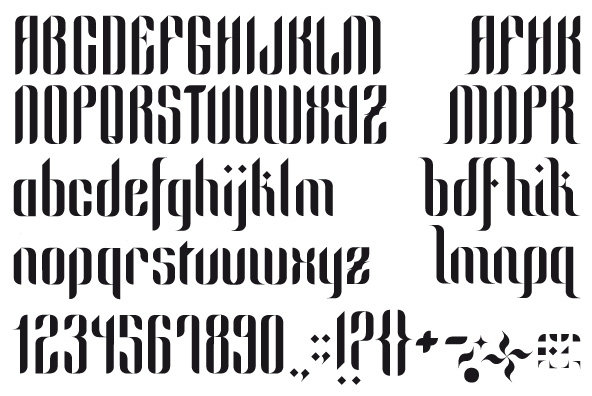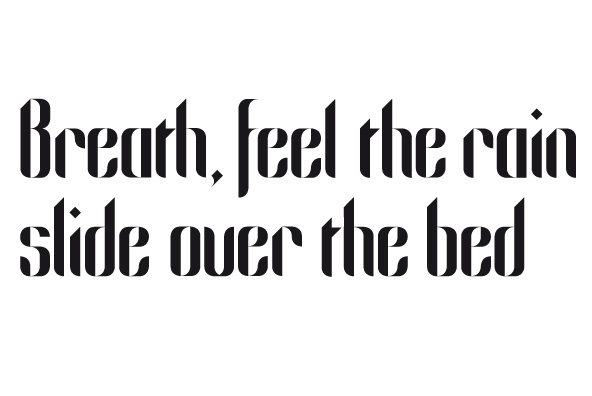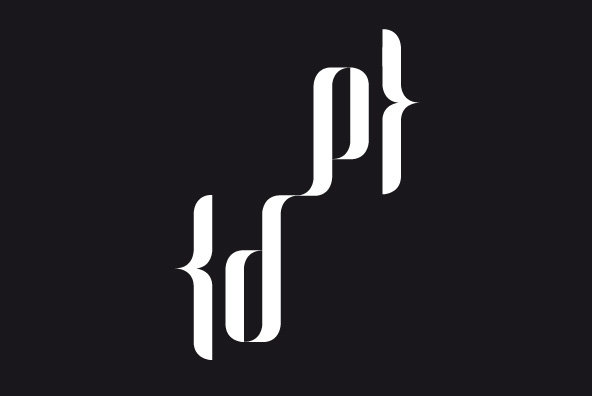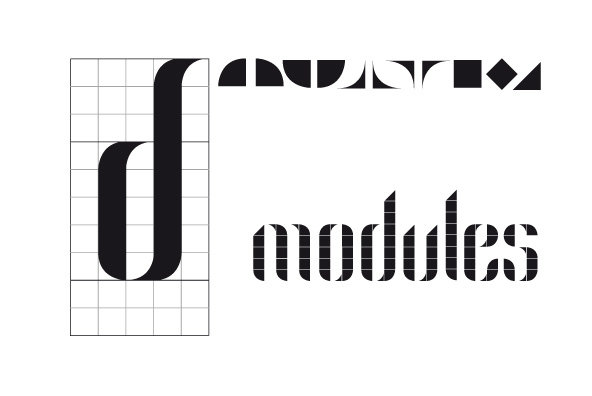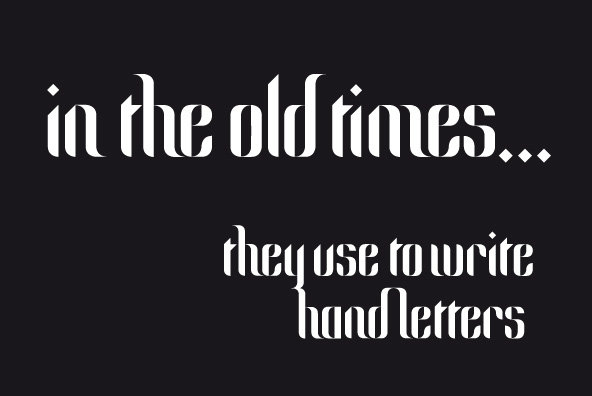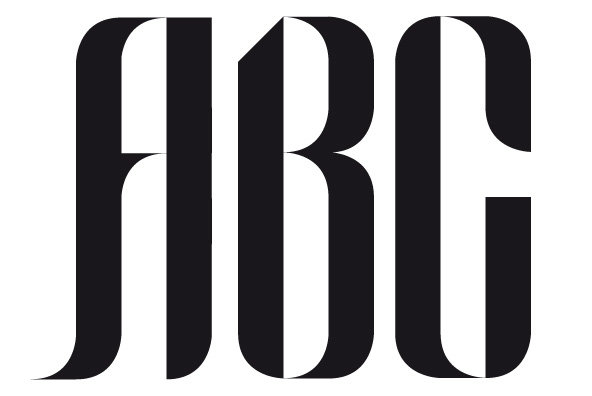
White Font 1
The White Font is a modular handset created from 5 different modules following a 5x10 grid. Apart from the uppercase, lowercase, alternates, numbers and signs, modules and the grid are provided for the users to be able to create their own icons and alternates. Since this format is delivered in the fully editable eps format, you can customize to your own desires.